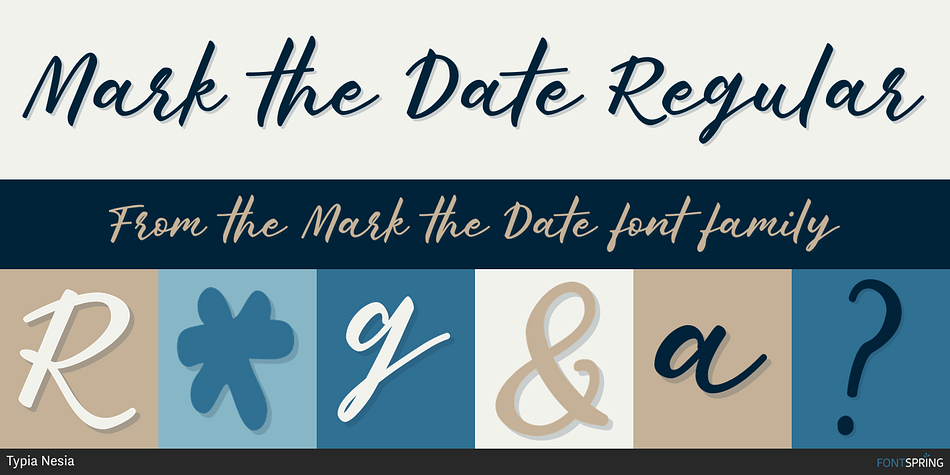
Mark the Date Regular
Mark the Date is a font family published by Typia Nesia.
Mark the Date - Wedding Calligraphy Script Font with Catchwords.
The unique flow and easy calligraphy style makes it perfect for blogging, social media, branding, wedding invites, cards or simply use it in your next design project. It comes with ligatures and 10 catchwords. You can combine it to make a perfect typography design.